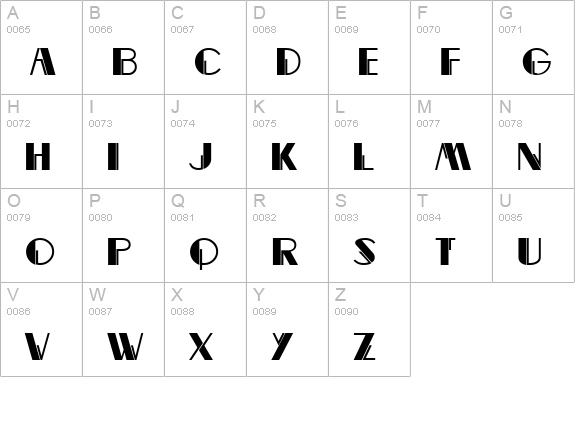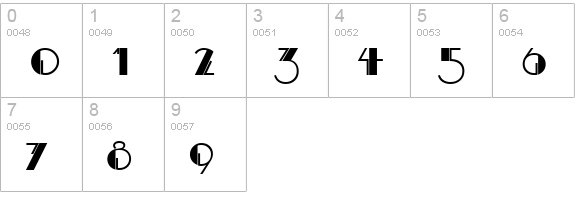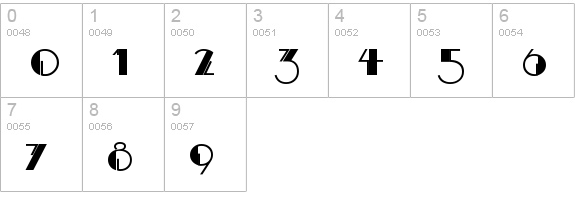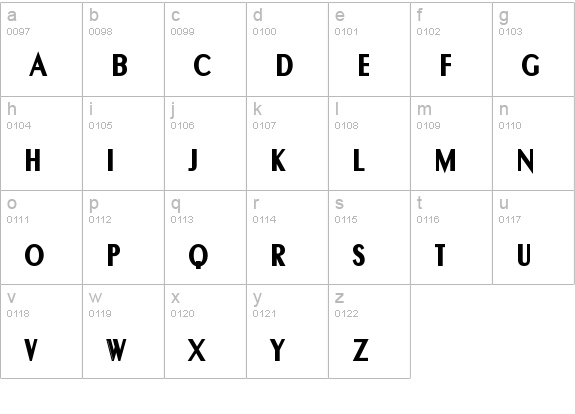
Banco Bold is a strong, high-contrast variant in the Banco typeface family \xE2\x80\x94 well suited to headlines, attention-grabbing titles, and strong calls-to-action.
Introducing Banco Bold, a sleek and modern typeface designed to make a bold statement in any design project. This versatile font exudes confidence and sophistication, making it perfect for headlines, logos, posters, and more. The strong, clean lines of Banco Bold command attention and convey a sense of strength and authority. What's even better is that Banco Bold is available for free download at FontsMarket.com! Whether you're a seasoned designer or just starting out, this font is sure to elevate your work to the next level. Don't miss out on the opportunity to add Banco Bold to your font collection today and unleash your creativity with this stunning typeface.